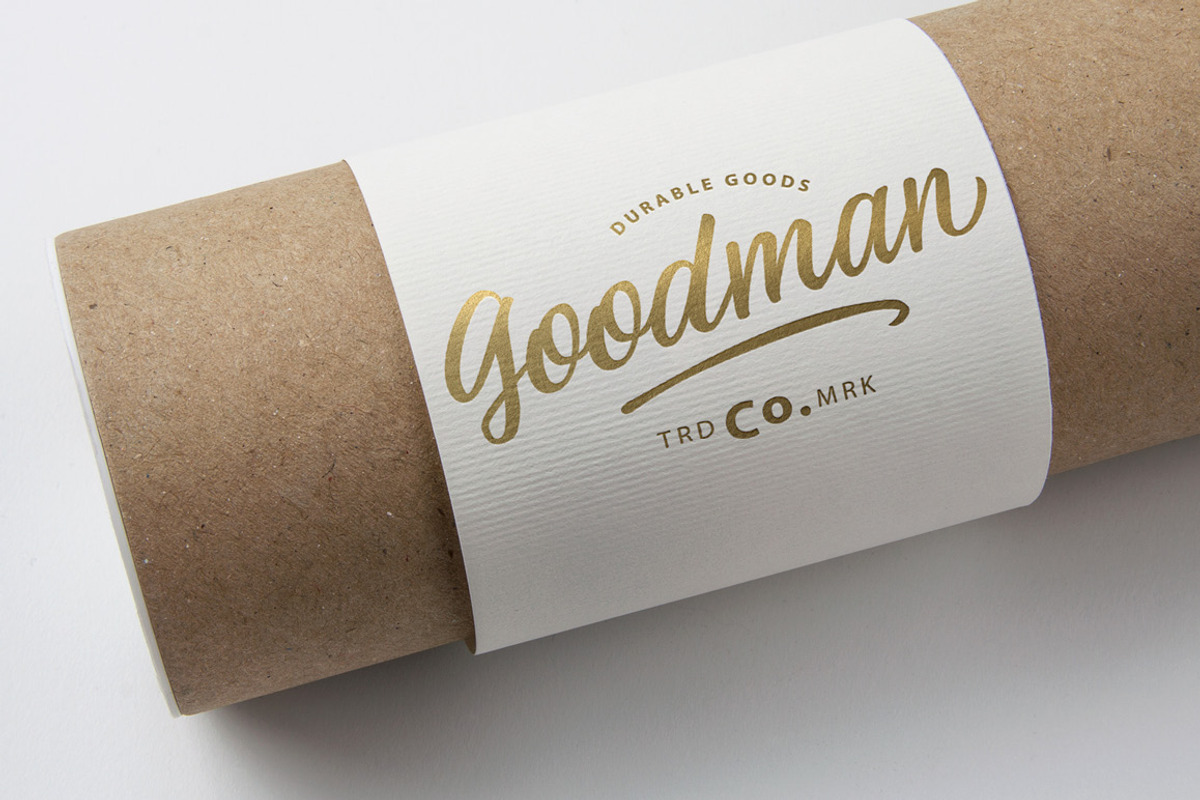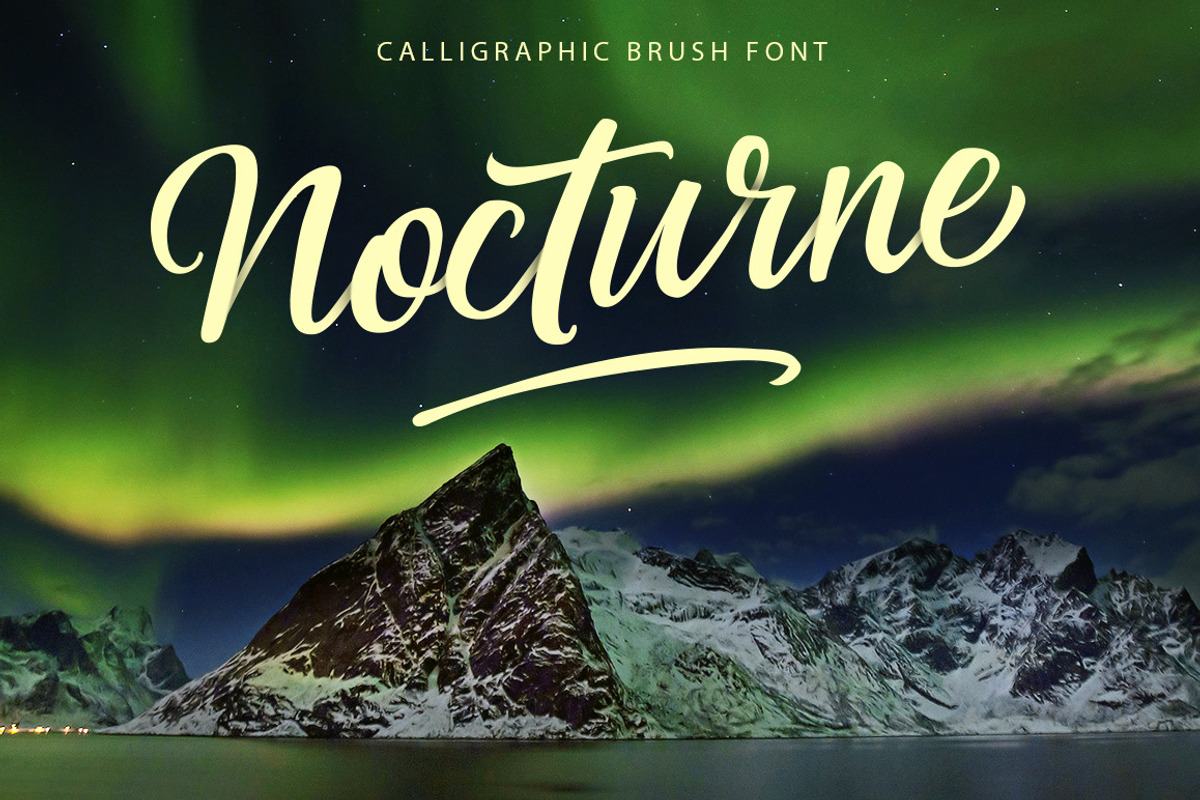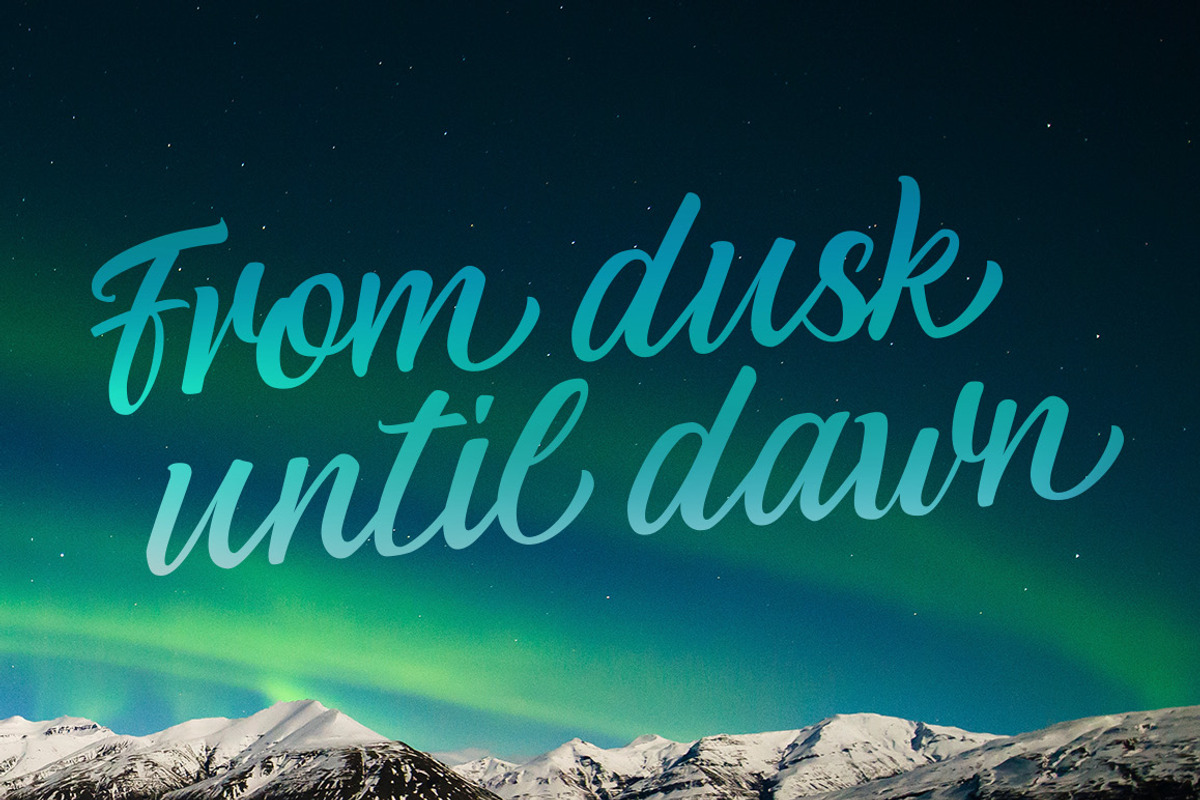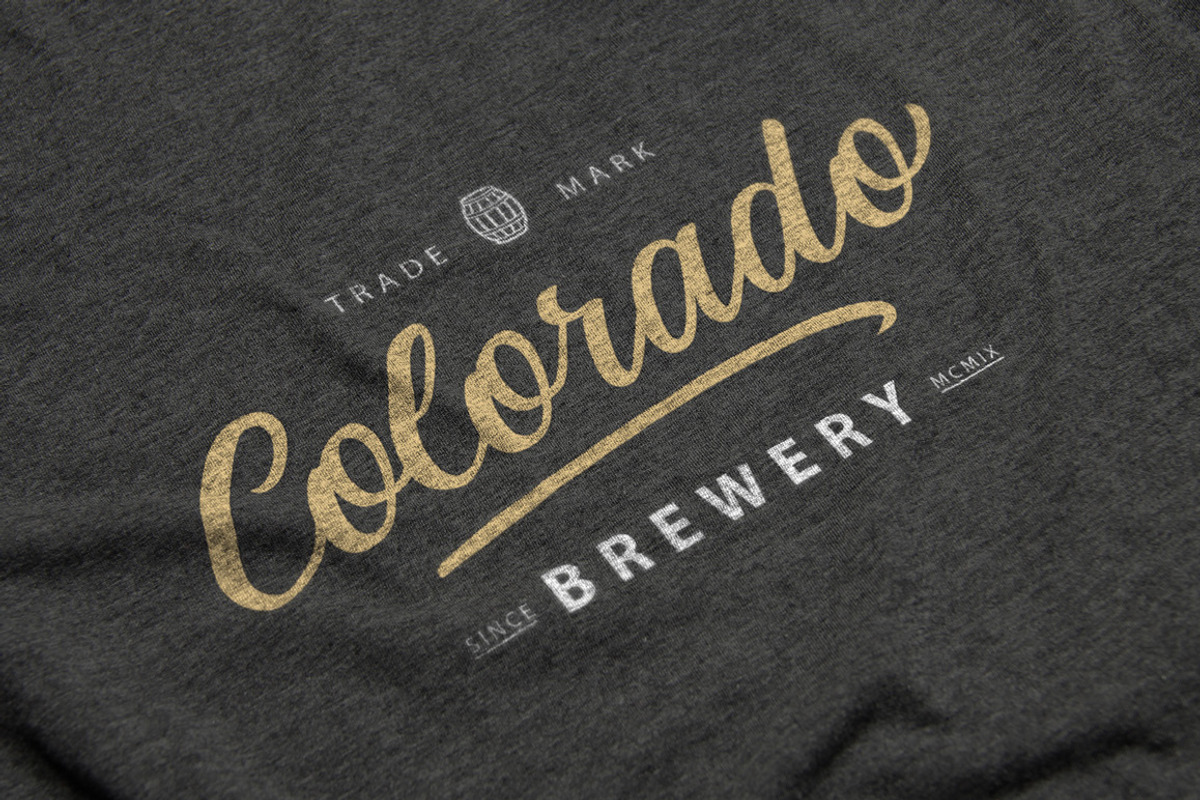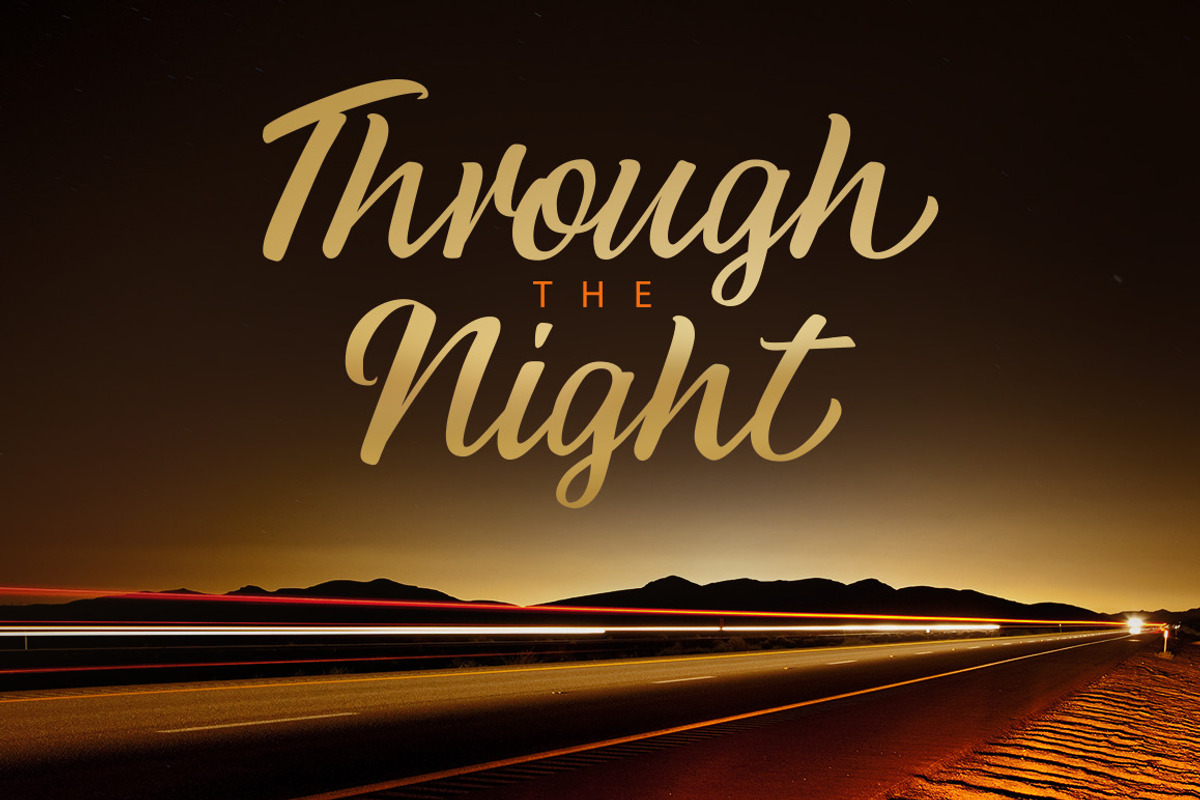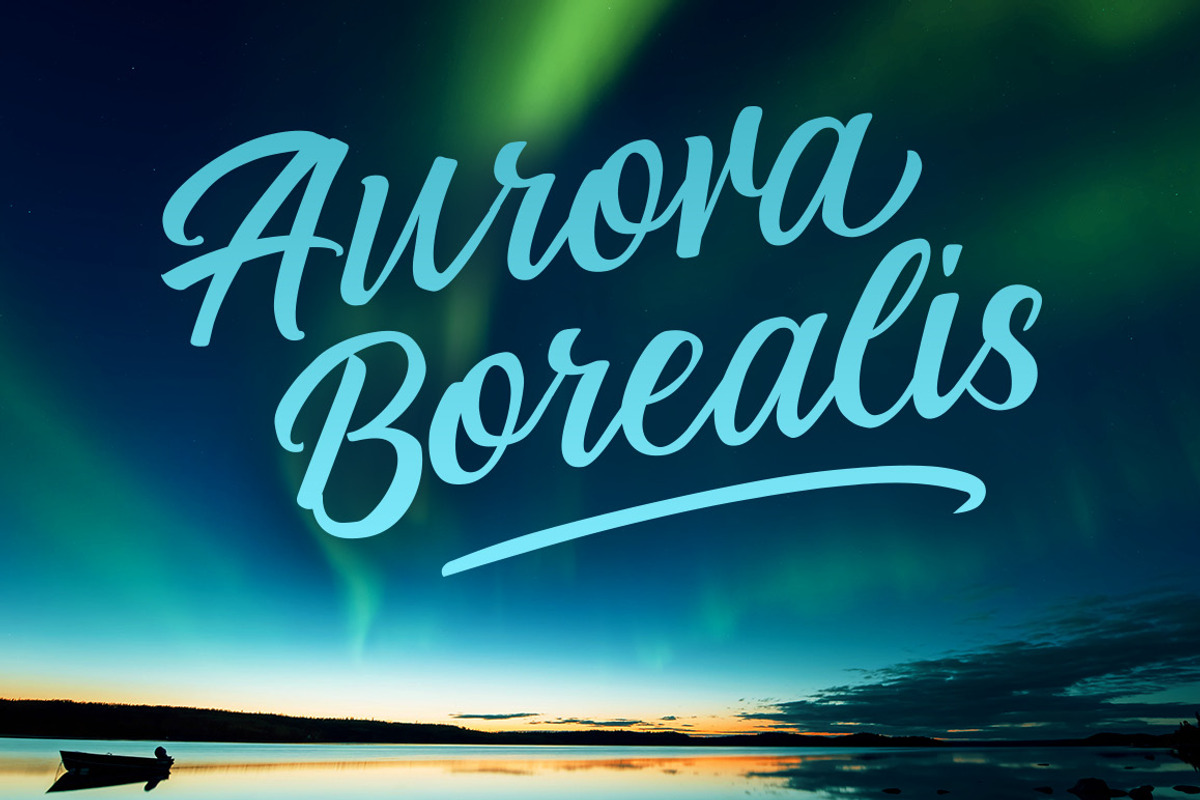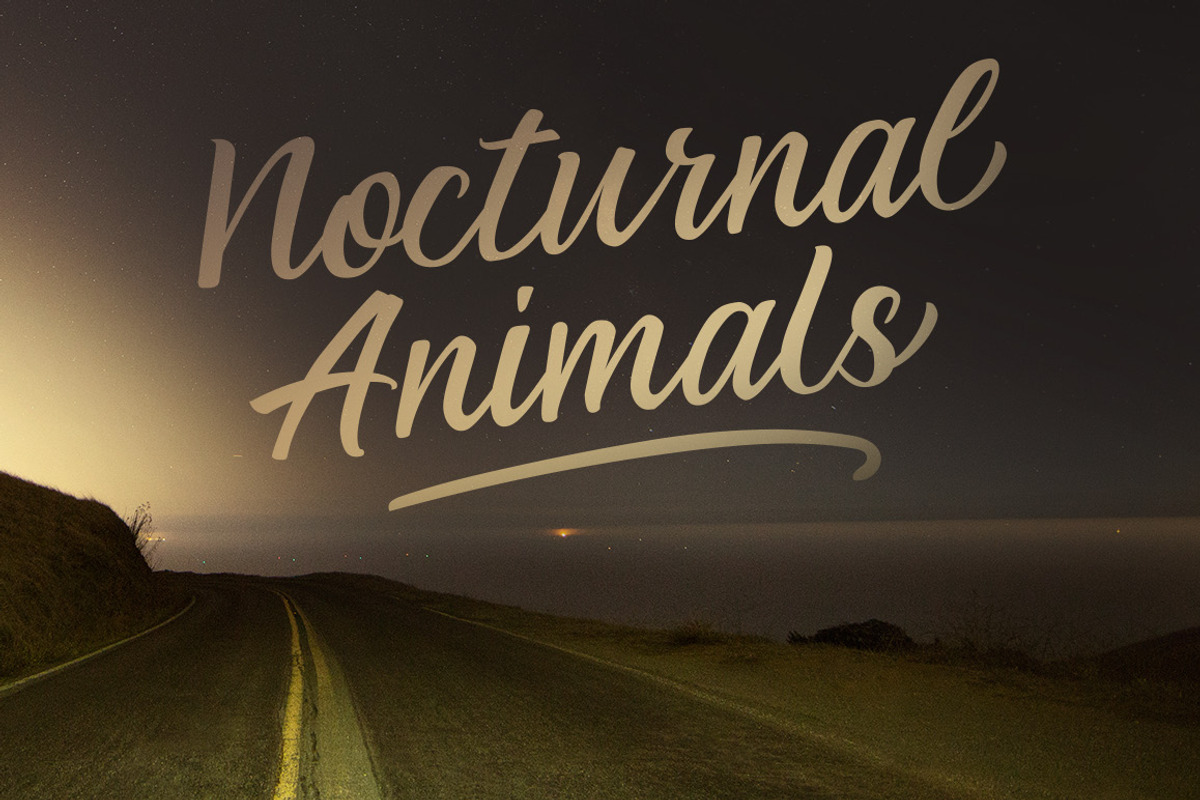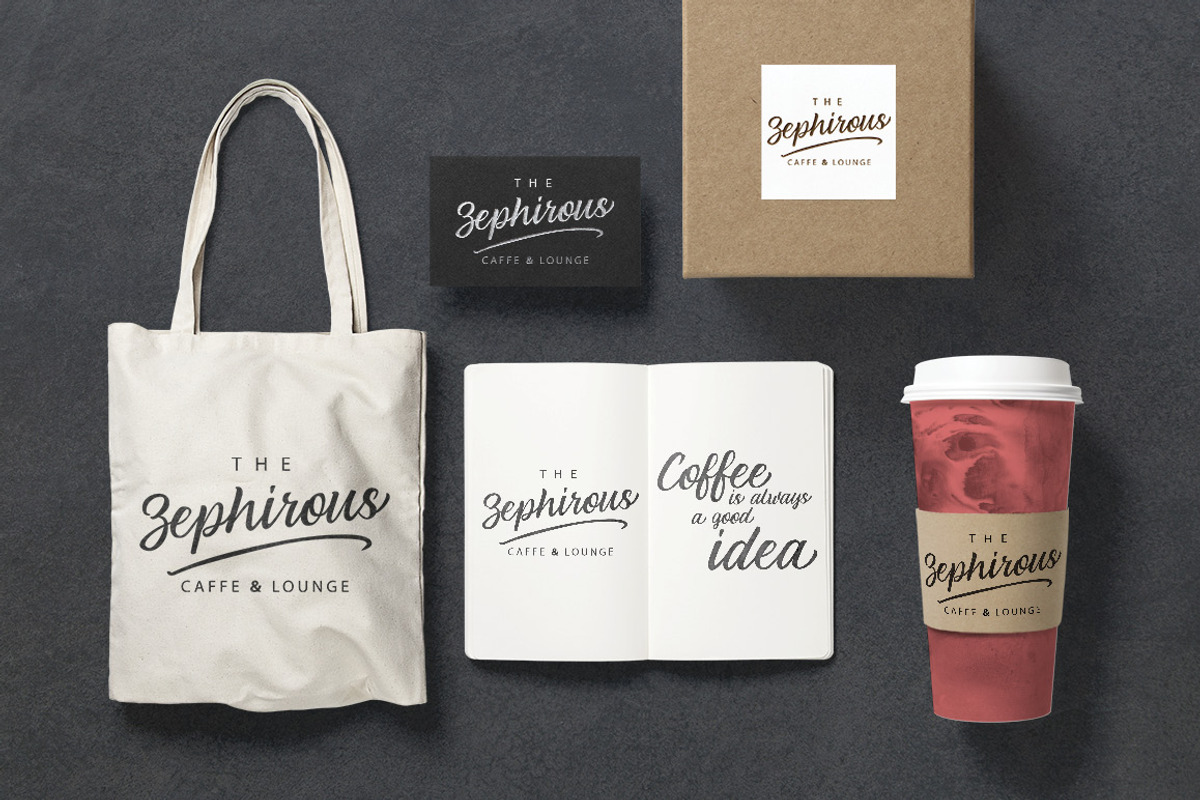
Nocturne Brush Font
Nocturne Brush Font by Lucas Elias is a font selected for branding, posters, packaging, typography.
- Nocturne contains multilingual support with accented characters for international (Western, European, Central European and South Eastern Eur
- Product includes: Expressive and curved Script Stylistic Alternates of Lowercase & Uppercase Ligatures & End-swashes 33 swashes Need to test
- Nocturne features various sets of lowercase and uppercase letter to help you get a more naturally written and custom look for your creations
Why Nocturne Brush Font is worth a look
Nocturne Brush Font by Lucas Elias fits naturally into Branding, posters, packaging, typography.